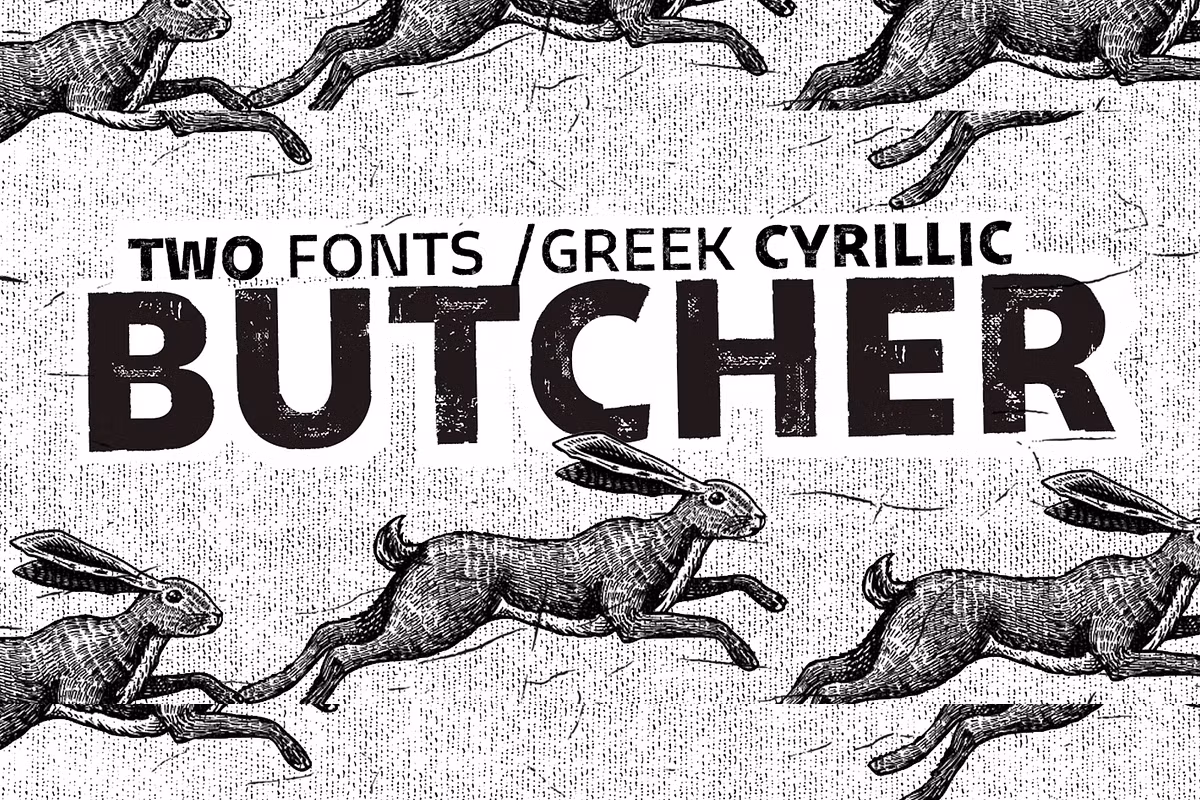
Butcher Fonts / Greek + Cyrillic Free Download is a bold and rugged typeface designed to make a strong visual statement. Perfect for edgy branding, poster designs, album covers, and streetwear logos, this font combines vintage charm with modern intensity. It includes both Greek and Cyrillic character sets, making it an excellent choice for international projects that need a distinctive, impactful font.
The rough, distressed edges of Butcher Fonts add a raw, authentic feel, perfect for any design that wants to stand out with a sense of rebellious style. Whether you're designing for a music brand, a gritty urban project, or something that demands attention, this font delivers the boldness you need.
Make a bold statement with Butcher Fonts / Greek + Cyrillic Free Download and add some serious edge to your typography. Perfect for those seeking an impactful, rugged typeface for global design projects.